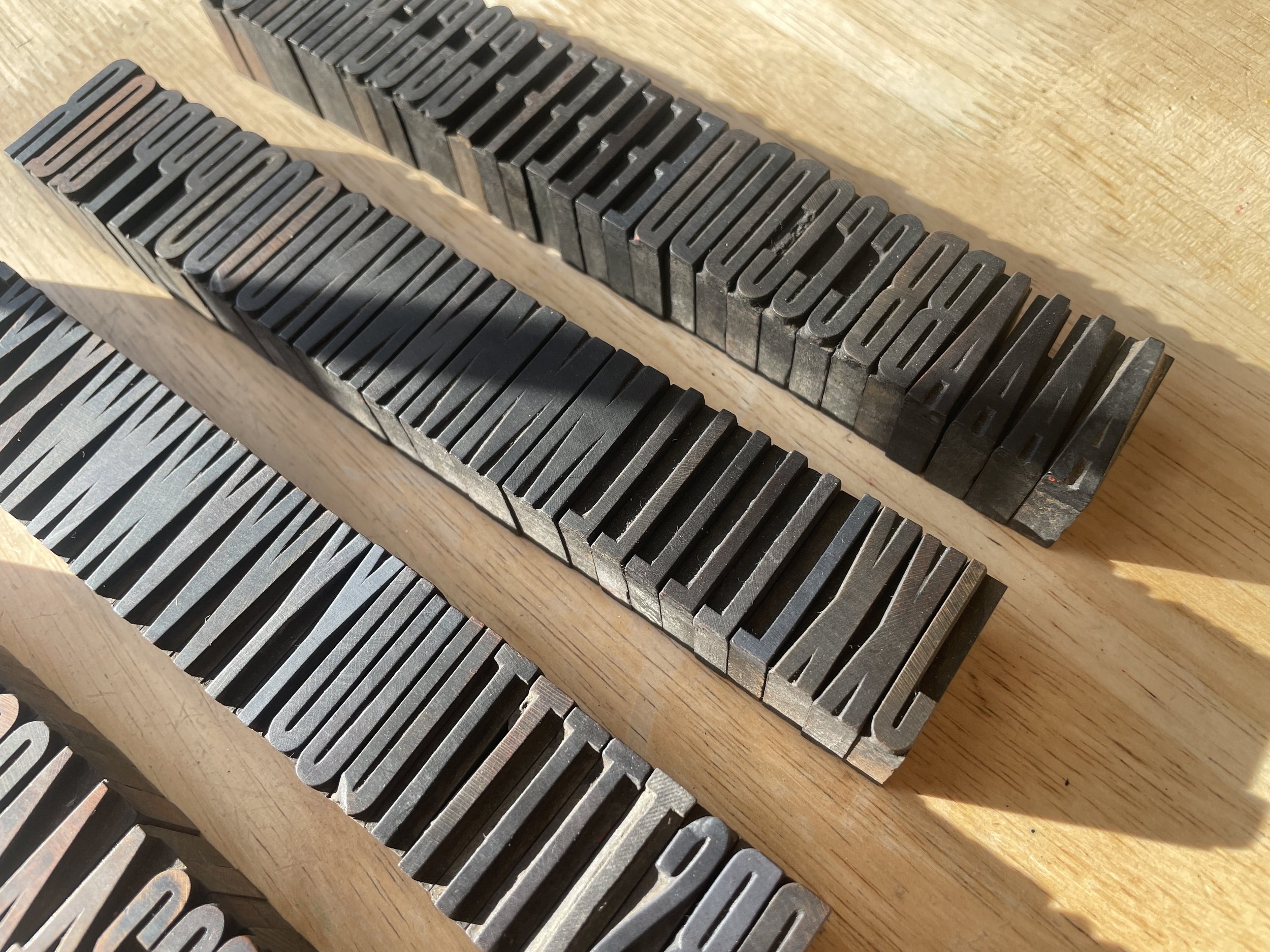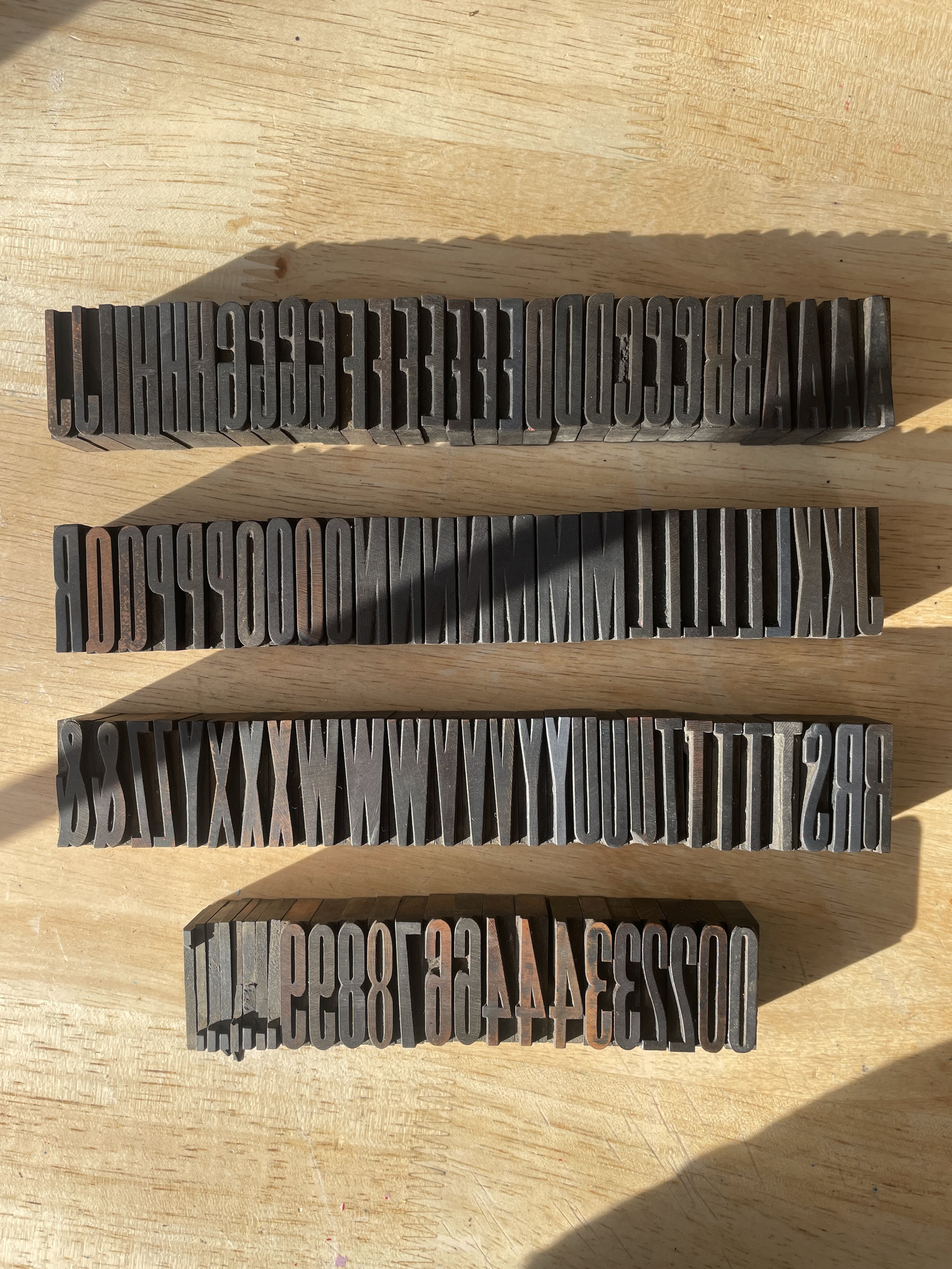
8 Line XXX Condensed Gothic William Page Wood Type Font (W30)
A beautiful ultra condensed font of type from the late 1800s produced by the notable wood type maker William Page. Includes all shown.